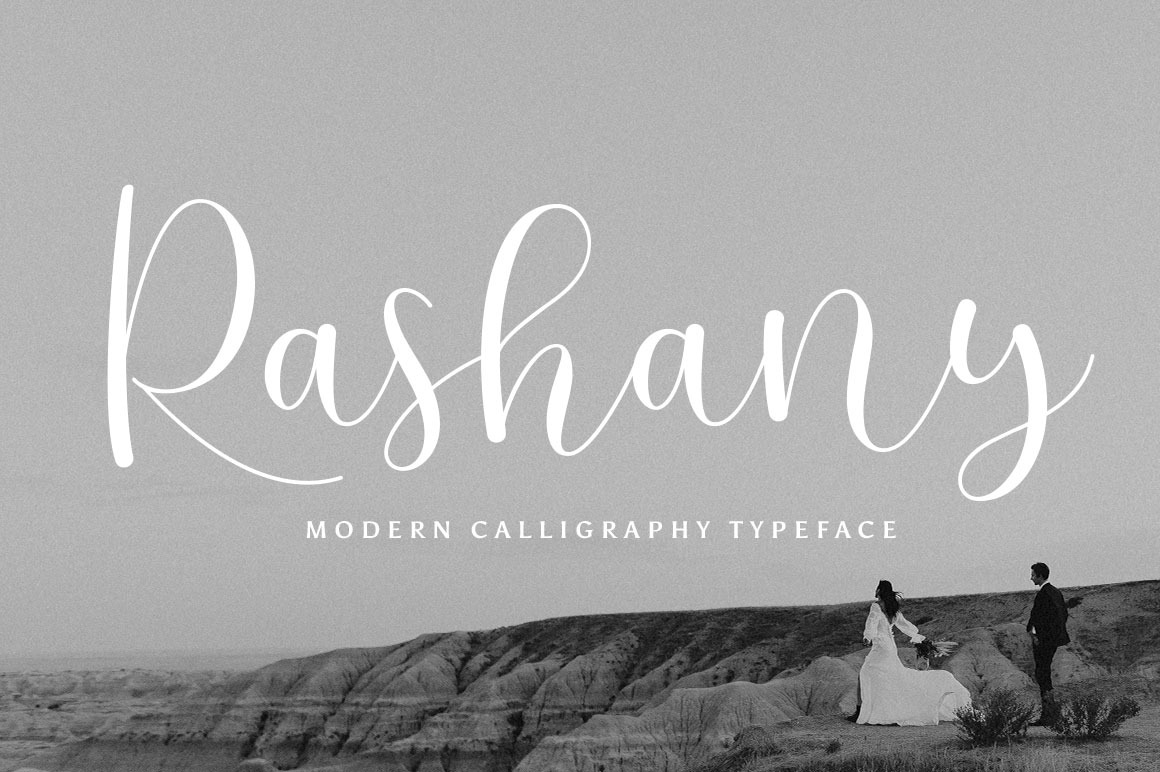
Rashany Modern Script Font
Introducing our new product Rashany Script Connecting script, designed to convey elegance and style. It is slender, feminine and friendly. Rashany is perfect for fashion, e-commerce brands, trend blogs, or any business that wants to appear classy and chic.
- Stylistic alternates